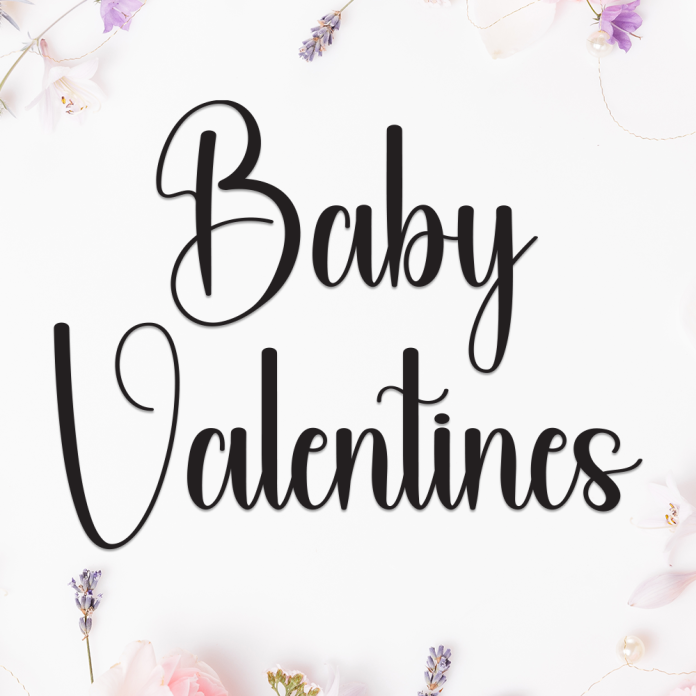
Baby Valentines is a sweet and playful handwriting font that captures the joy of love in its most adorable form. With its soft strokes and heartwarming style, this font is perfect for romantic and childlike themes that need a tender, handwritten touch.
Ideal for Valentine’s cards, baby-themed designs, love notes, greeting cards, and sweet branding, Baby Valentines fills your designs with warmth and affection.
Cute and romantic handwritten style
Soft, rounded letterforms with a loving vibe
Perfect for baby products, love themes, holiday cards, and playful branding
Spread love with Baby Valentines, the handwriting font that’s as sweet as a hug.